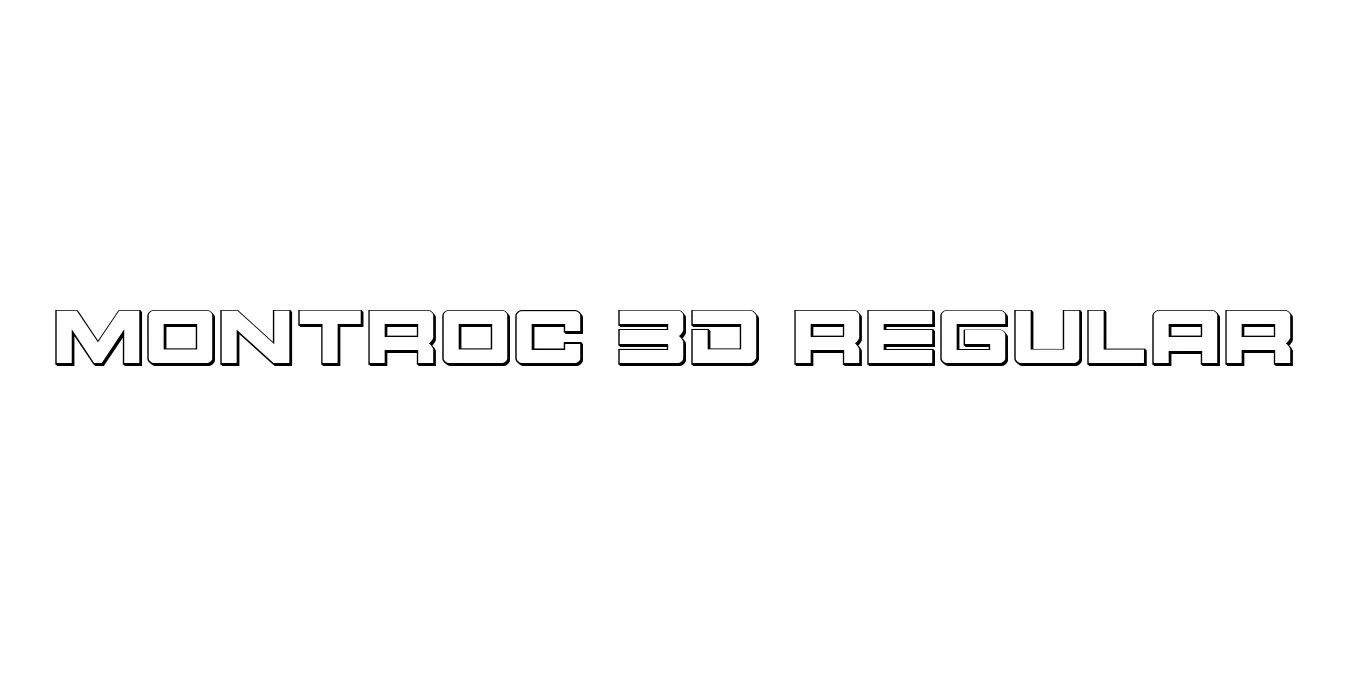
Montroc 3D Regular
Designed by Ray Larabie
| Category | Display / 3D |
| Designer | Ray Larabie |
| Similar Fonts | Impact, Microgramma, Bank Gothic, Copperplate |
Montroc 3D Regular is a bold, industrial display typeface designed by Ray Larabie of Typodermic Fonts. Taking inspiration from the heavy, wide architectural lettering of the mid-20th century, this font family emphasizes strength and stability. The 3D variant specifically introduces a depth-defying shadow effect that gives the glyphs a physical, tactile presence, making it an excellent choice for projects requiring a sense of power and dimensionality.
The design features wide proportions and subtle rounding on the corners to balance its heavy weight. This makes it highly readable in large formats, such as billboards, gaming interfaces, and movie titles. Its retro-futuristic aesthetic allows it to transition seamlessly between vintage industrial branding and modern digital environments, providing designers with a versatile tool for high-impact visual communication.
Montroc 3D Regular Best Uses
Ideal for sci-fi or action game titles and HUD interfaces.
Perfect for automotive, heavy machinery, or construction equipment logos.
Great for large-scale physical signs and exhibition displays.
High-impact for movie posters, sports event flyers, and tech conventions.
Eye-catching as a hero section header for modern, industrial websites.